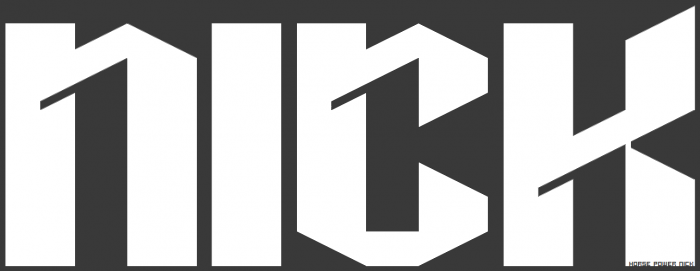
The y and b are goooooooood
This is awesome. Great job! :)
Cool. Just curious, the M, W, U, V, L & J have the light thin stroke above the connections where the others have it below. Was that intended, as simply a design compromise?
great design! love this black font